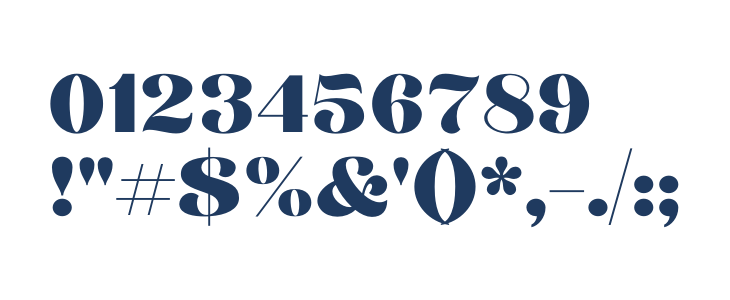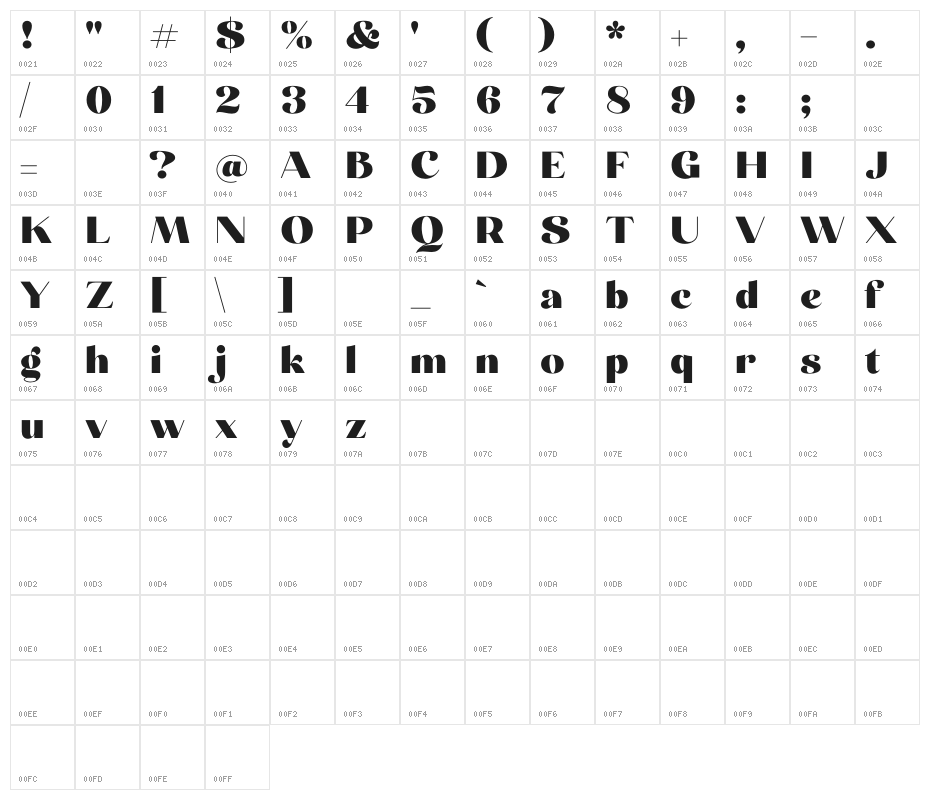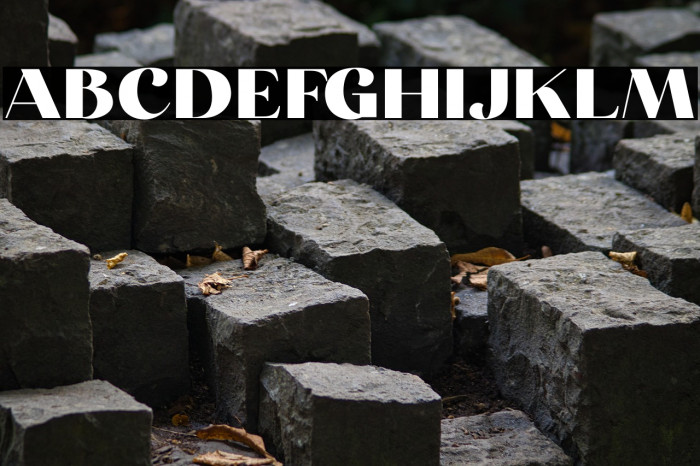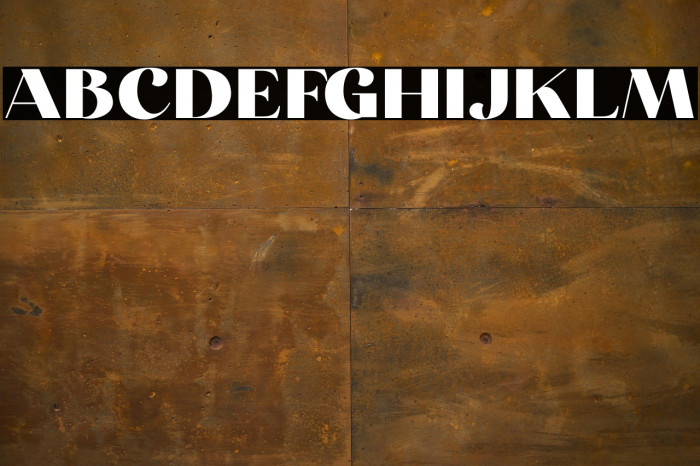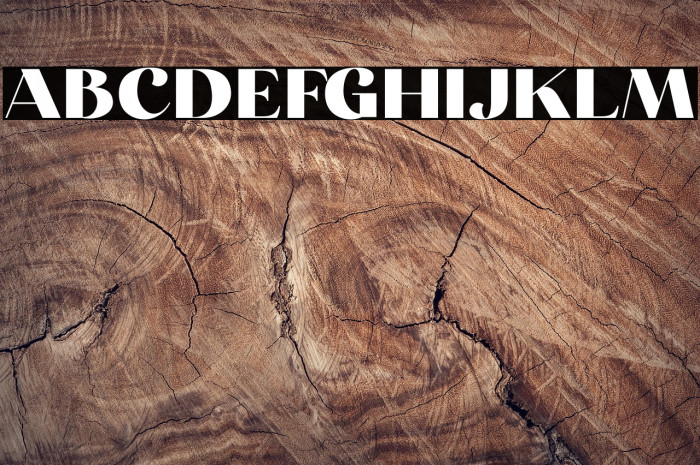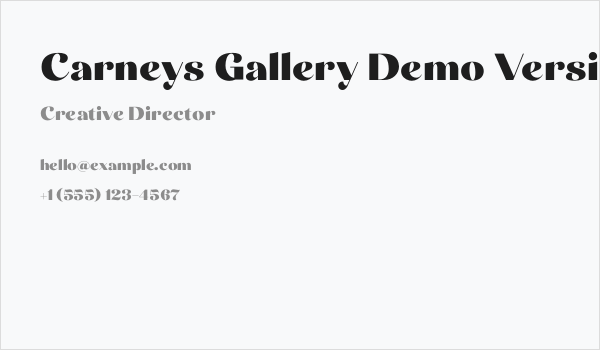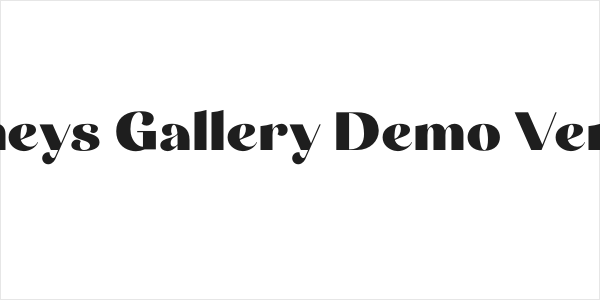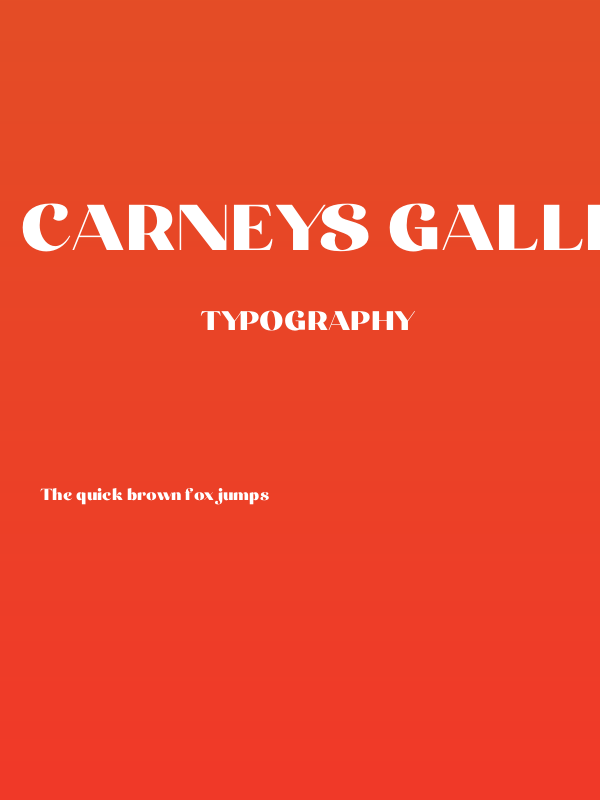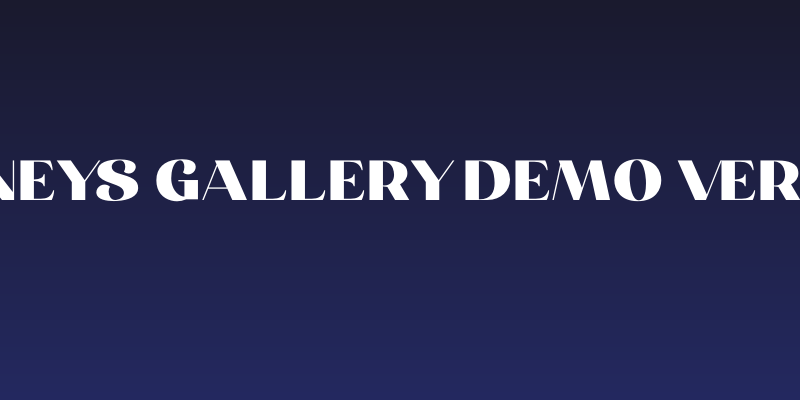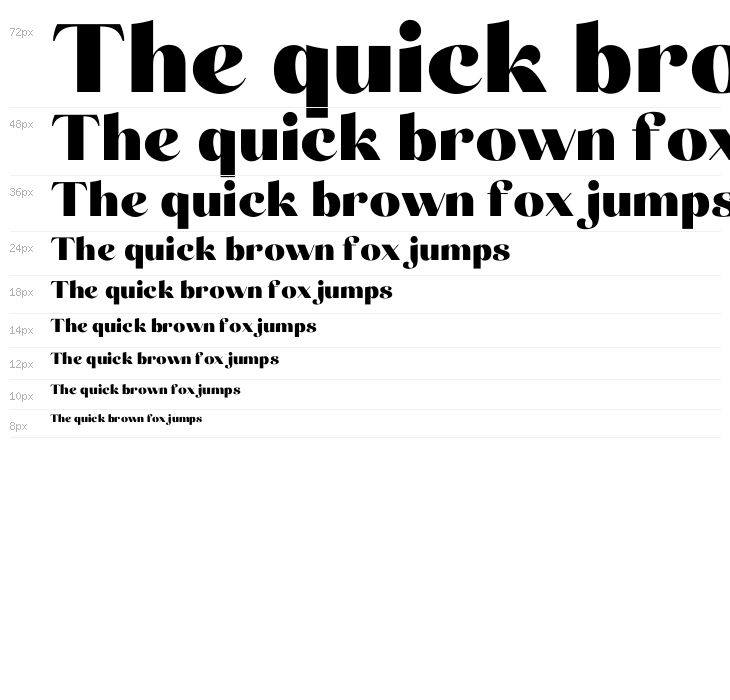
Carneys Gallery Demo Version Font
Carneys Gallery Demo Version Description
This font features a bold and striking design with high contrast between thick and thin strokes, creating a dramatic and eye-catching appearance. The uppercase letters exhibit a unique blend of sharp angles and smooth curves, while the lowercase letters maintain a consistent boldness with rounded edges. The numerals are equally bold, ensuring visibility and impact. Special characters are designed with the same attention to detail, making them stand out. The overall style is modern and decorative, suitable for making a statement in any design.
| Proposed Projects | Ideal for branding, headlines, posters, and any design requiring a strong visual impact. |